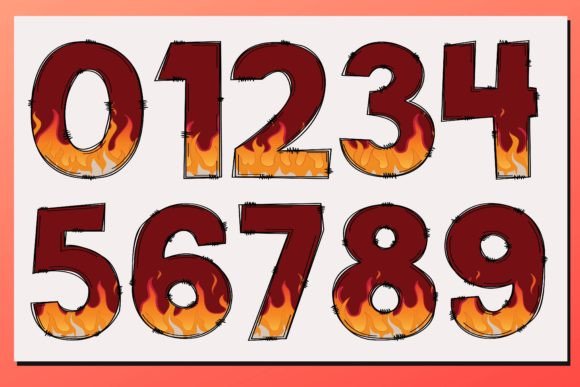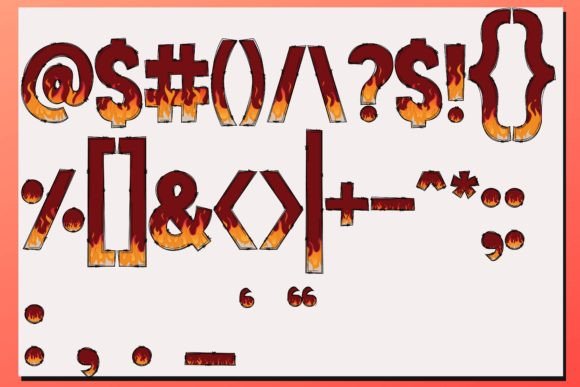
Ignite Your Designs with Fire Font: A Blazing Hot Display Font
Are you looking for a font that adds a spark to your creative projects? Look no further than Fire Font, a stunning display font that features fire and flames. This unique decorative font is perfect for designers, crafters, and anyone looking to add a touch of heat to their work. In this article, we’ll dive into the features and benefits of Fire Font, and explore the many ways you can use it to make your designs come alive.
What is Fire Font?
Fire Font is a decorative display font that is designed to evoke the warmth and energy of fire. With its bold, flame-inspired letters, this font is sure to grab attention and add a touch of drama to any design. Whether you’re working on a crafting project, t-shirt design, poster, digital design, presentation, book cover, or anything else, Fire Font is the perfect choice.
Key Features of Fire Font
- Unique and Decorative: Fire Font features a one-of-a-kind design that is sure to stand out from the crowd. Its flame-inspired letters add a touch of whimsy and creativity to any design.
- Highly Versatile: Fire Font can be used for a wide range of projects, from crafting and t-shirt designs to posters, digital designs, presentations, book covers, and more.
- Scalable: Fire Font is designed to be scalable, meaning it can be used at a variety of sizes without losing its clarity or impact.
Ways to Use Fire Font
Fire Font is a versatile font that can be used in a variety of creative projects. Here are some ideas to get you started:
- Crafting: Add a touch of heat to your crafting projects, such as scrapbooking, card making, and DIY decorations.
- T-Shirt Designs: Create eye-catching t-shirt designs that are sure to turn heads.
- Posters: Use Fire Font to create bold and attention-grabbing posters for events, promotions, or advertising.
- Digital Designs: Add a touch of fire to your digital designs, such as social media graphics, blog headers, and email newsletters.
- Presentations: Use Fire Font to add a touch of drama and energy to your presentations.
- Book Covers: Create eye-catching book covers that are sure to stand out on bookshelves.
Tips for Using Fire Font
Here are some tips for getting the most out of Fire Font:
- Use it Sparingly: Fire Font is a bold and attention-grabbing font, so use it sparingly to avoid overwhelming your design.
- Pair it with Other Fonts: Fire Font pairs well with a variety of other fonts, so don’t be afraid to experiment with different combinations.
- Experiment with Colors: Fire Font looks great in a variety of colors, so experiment with different hues to find the one that works best for your design.